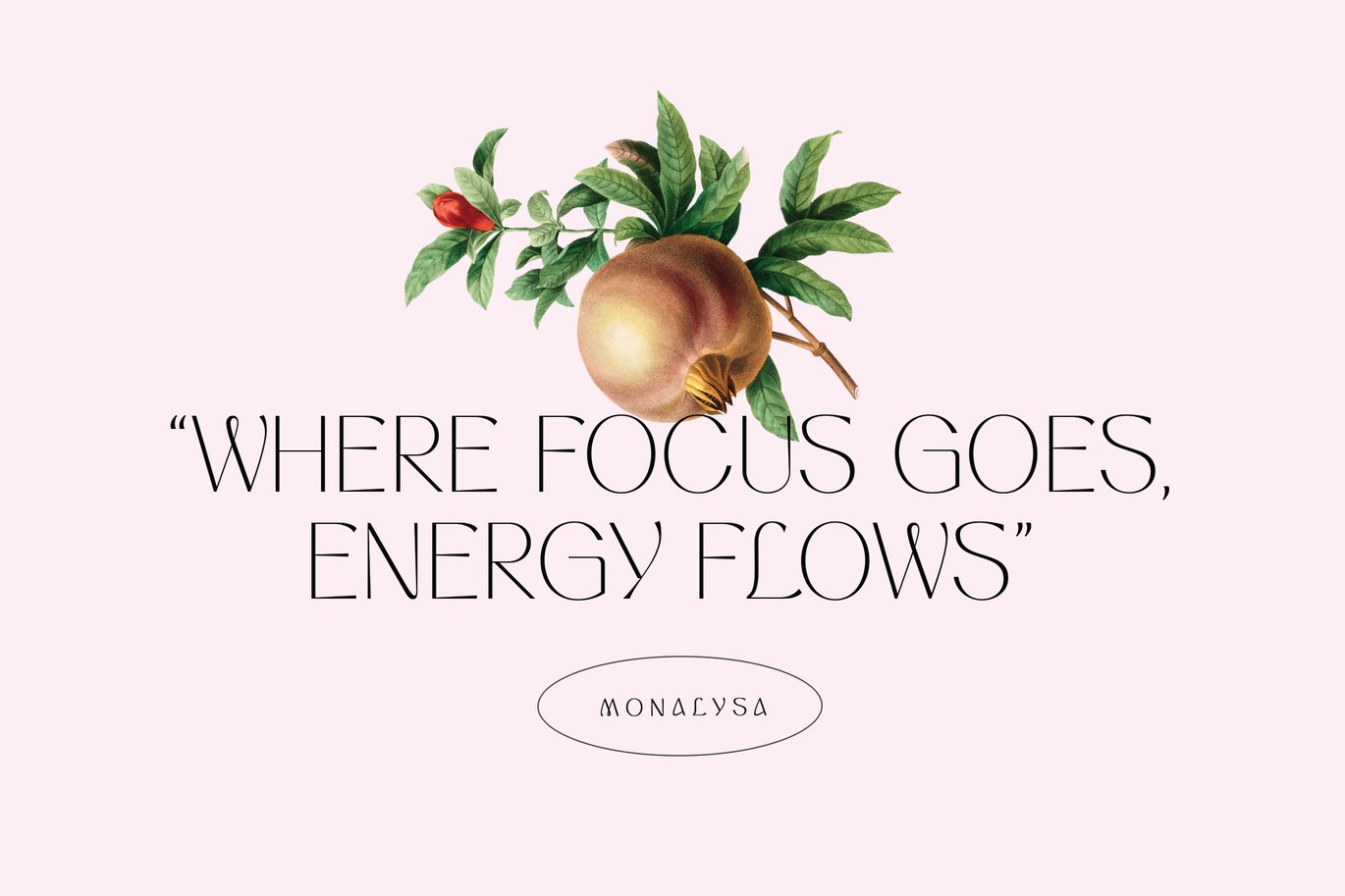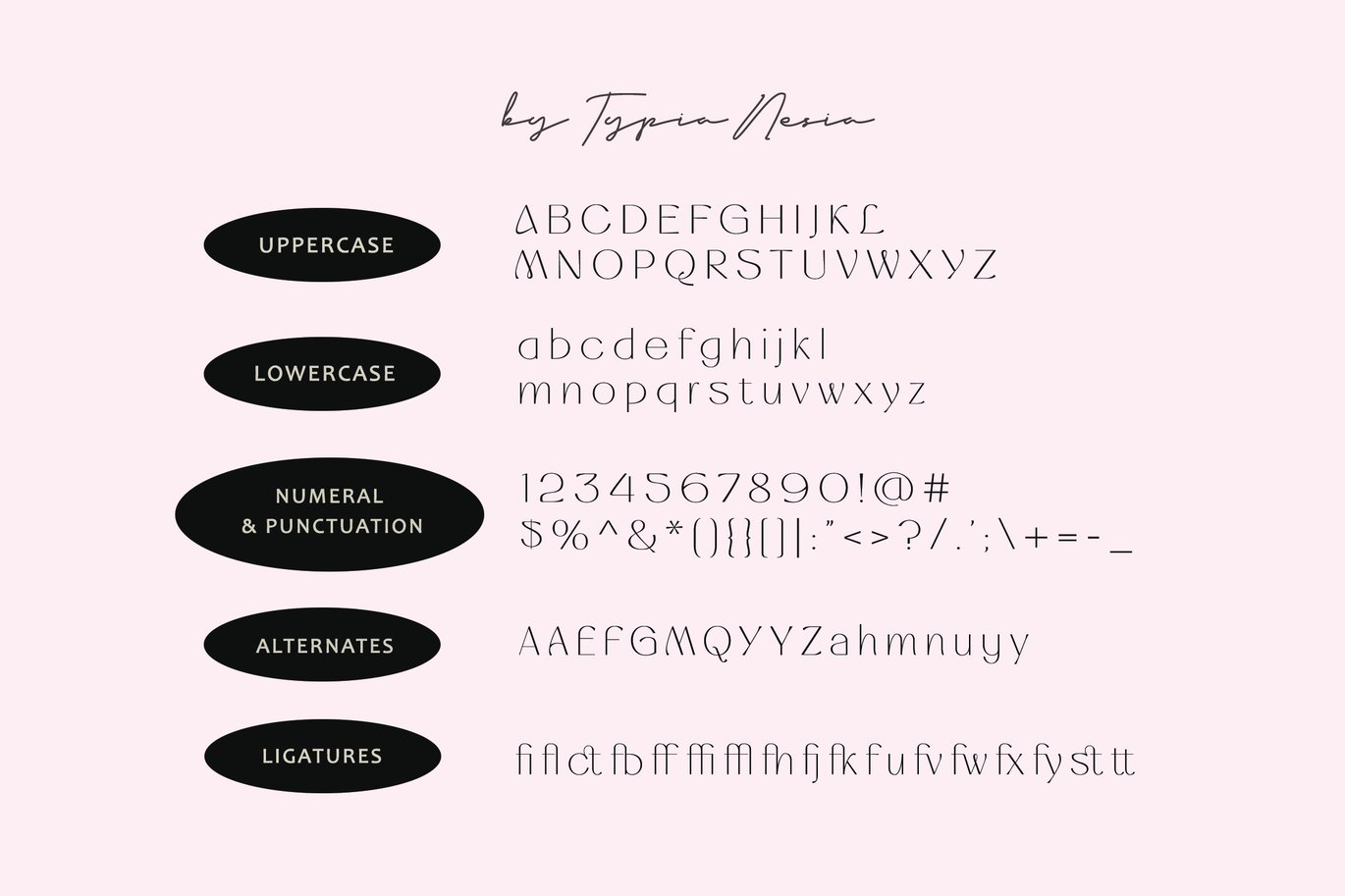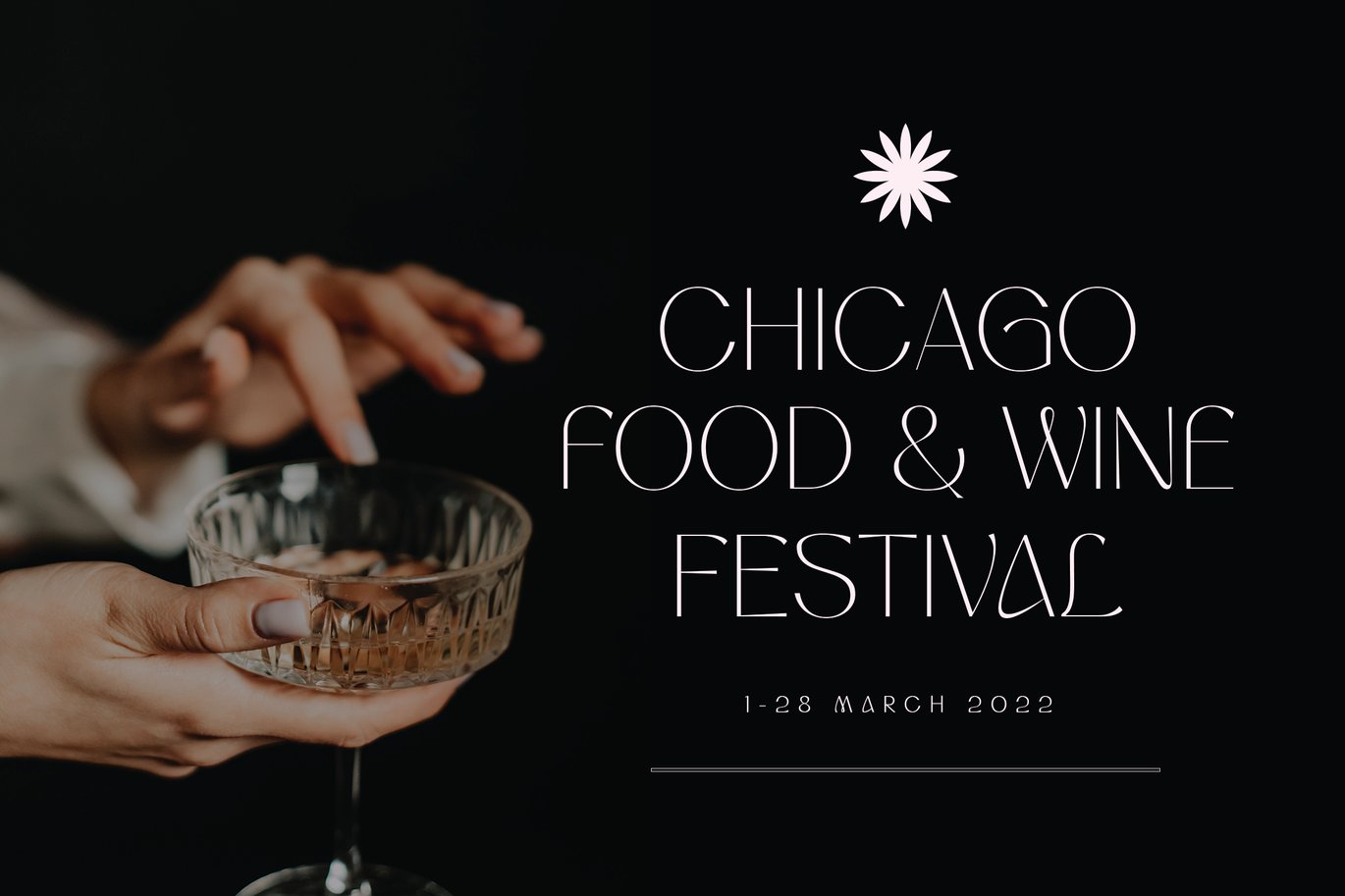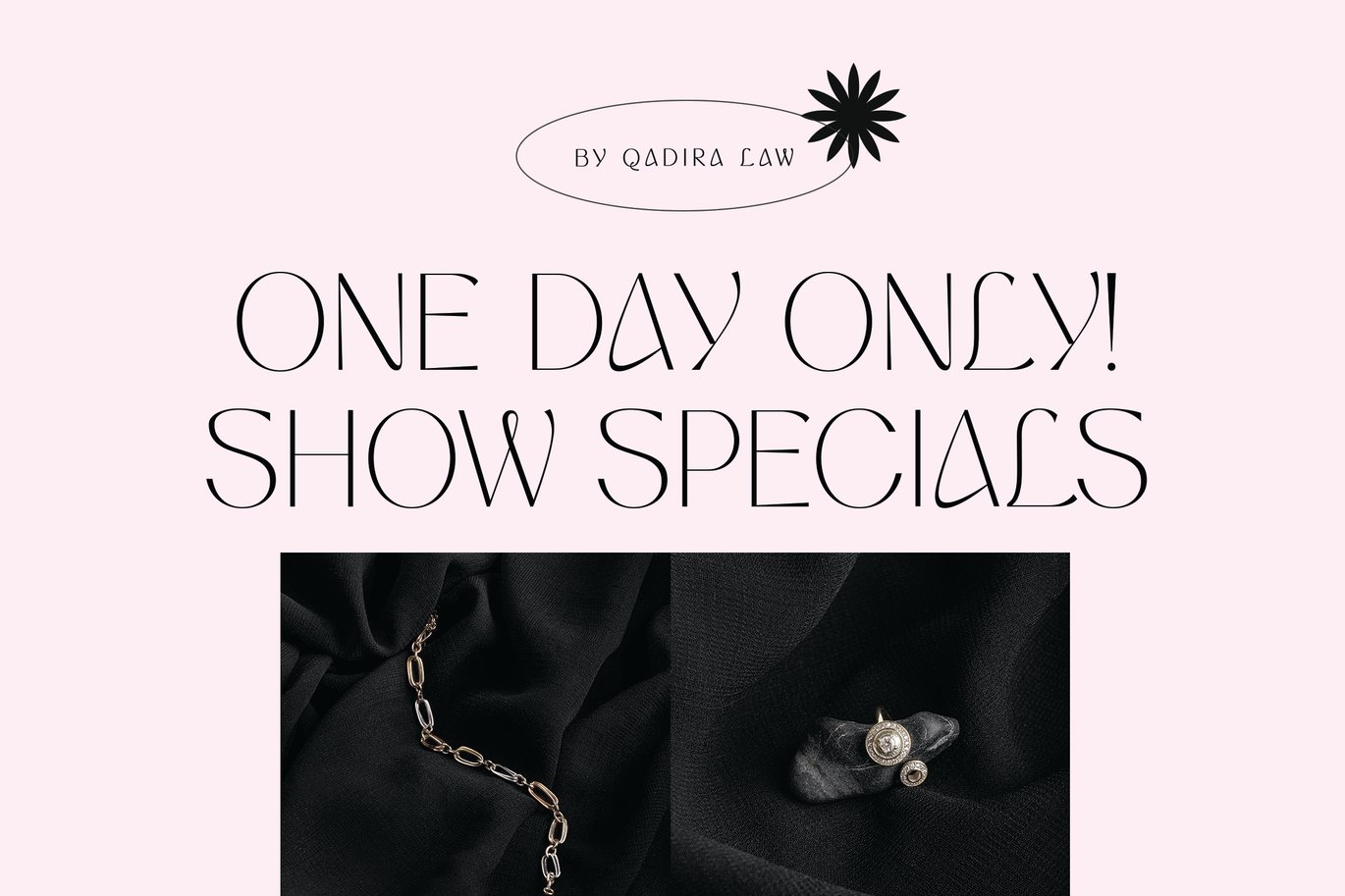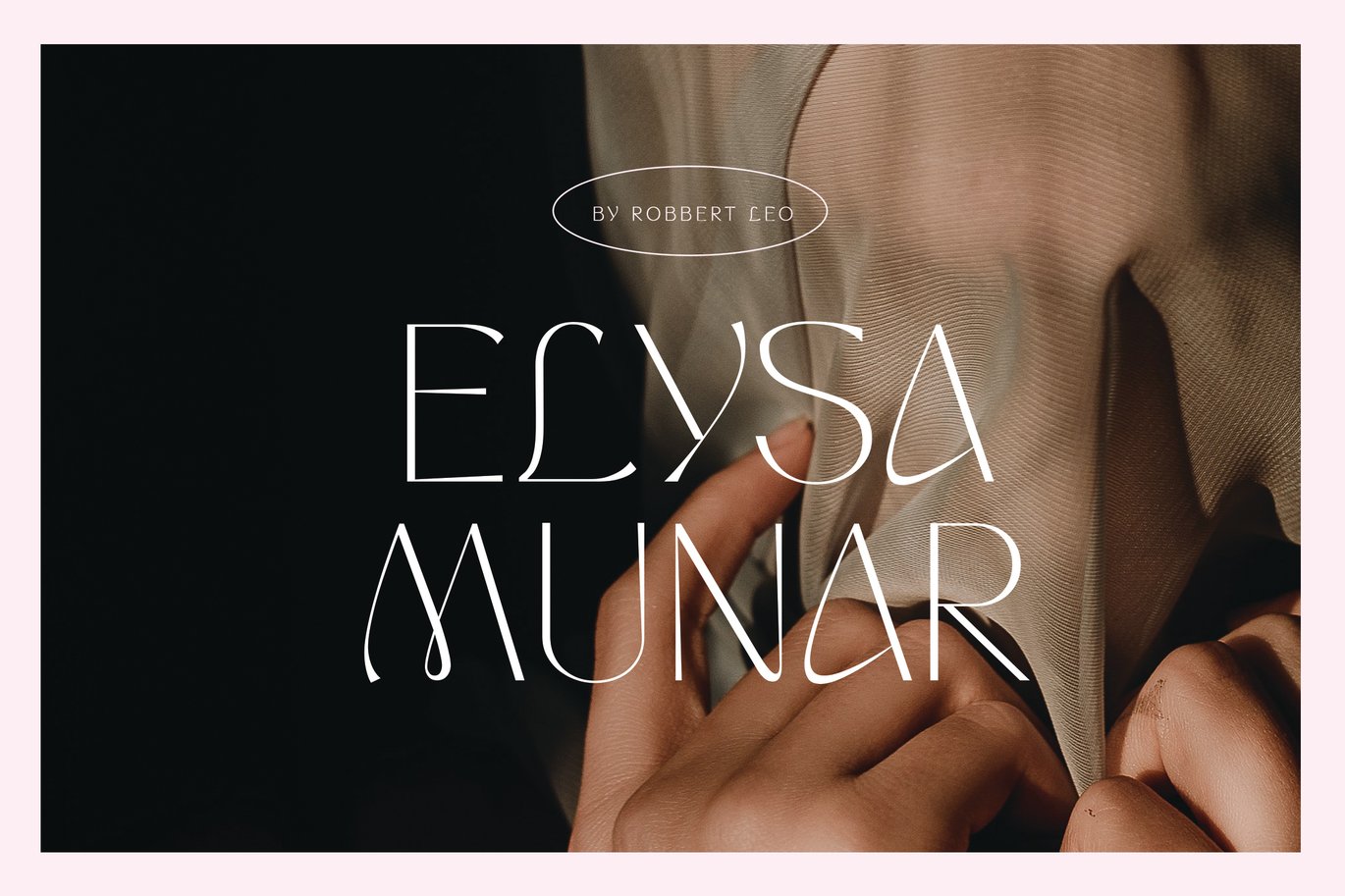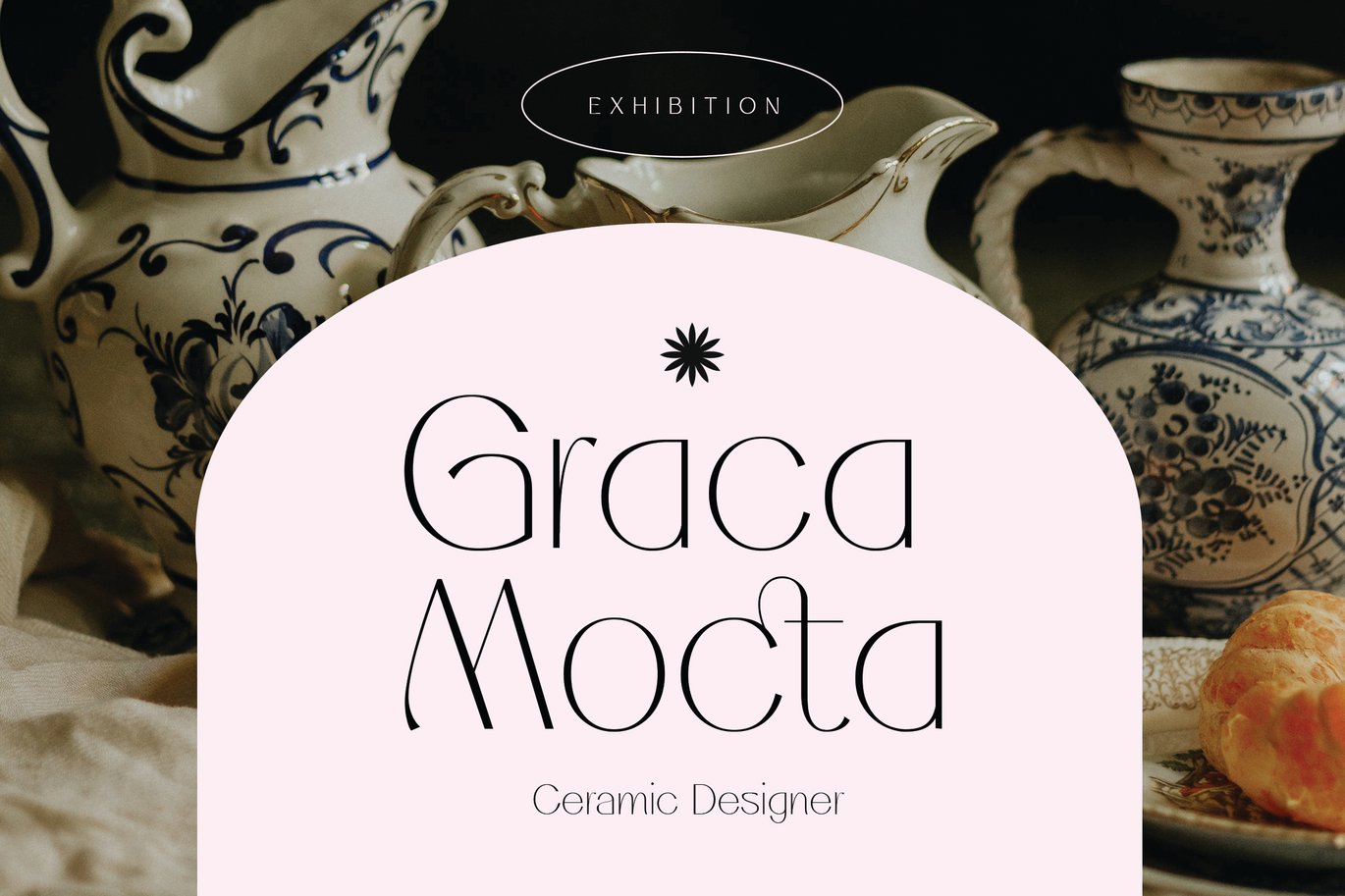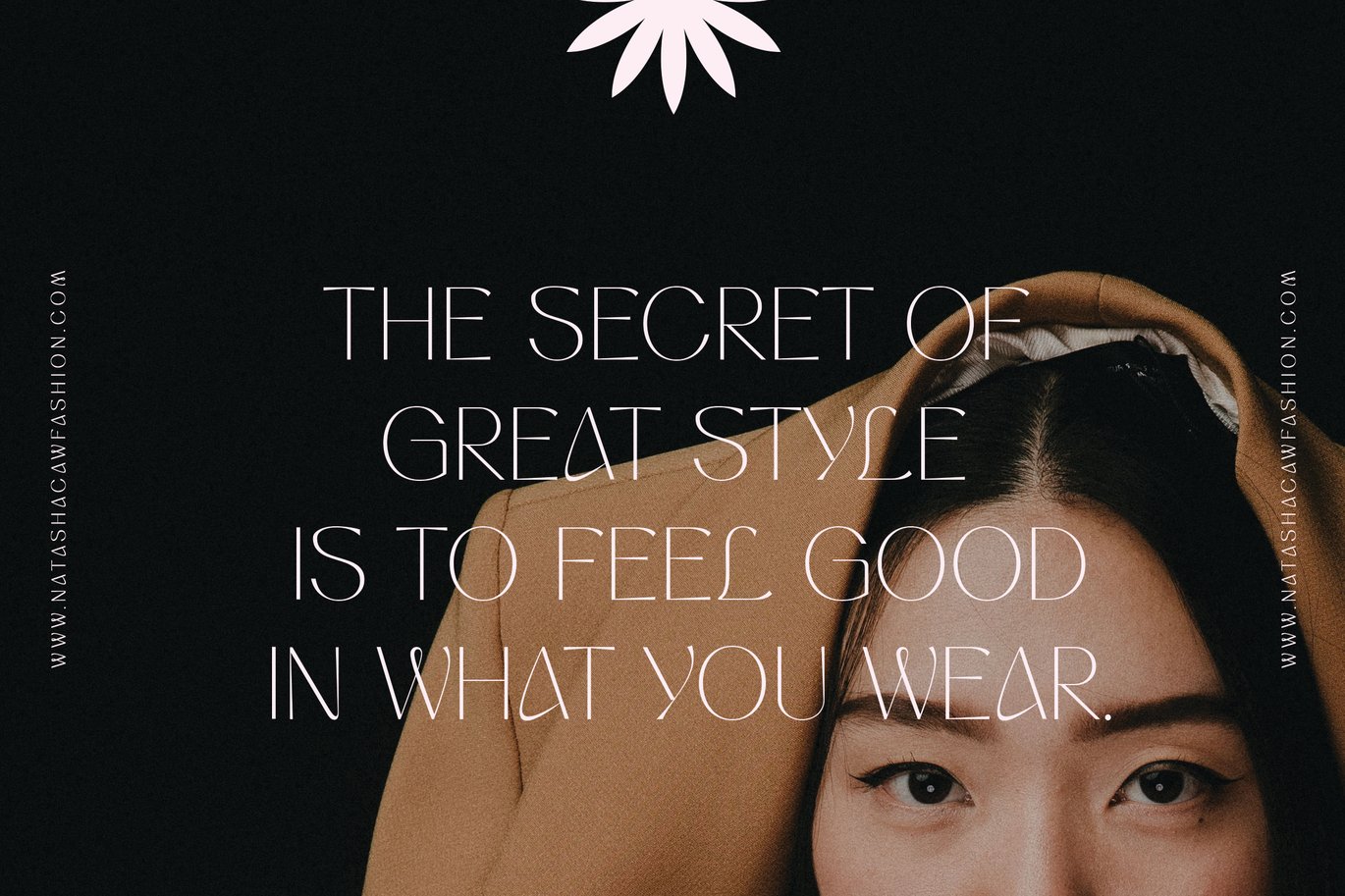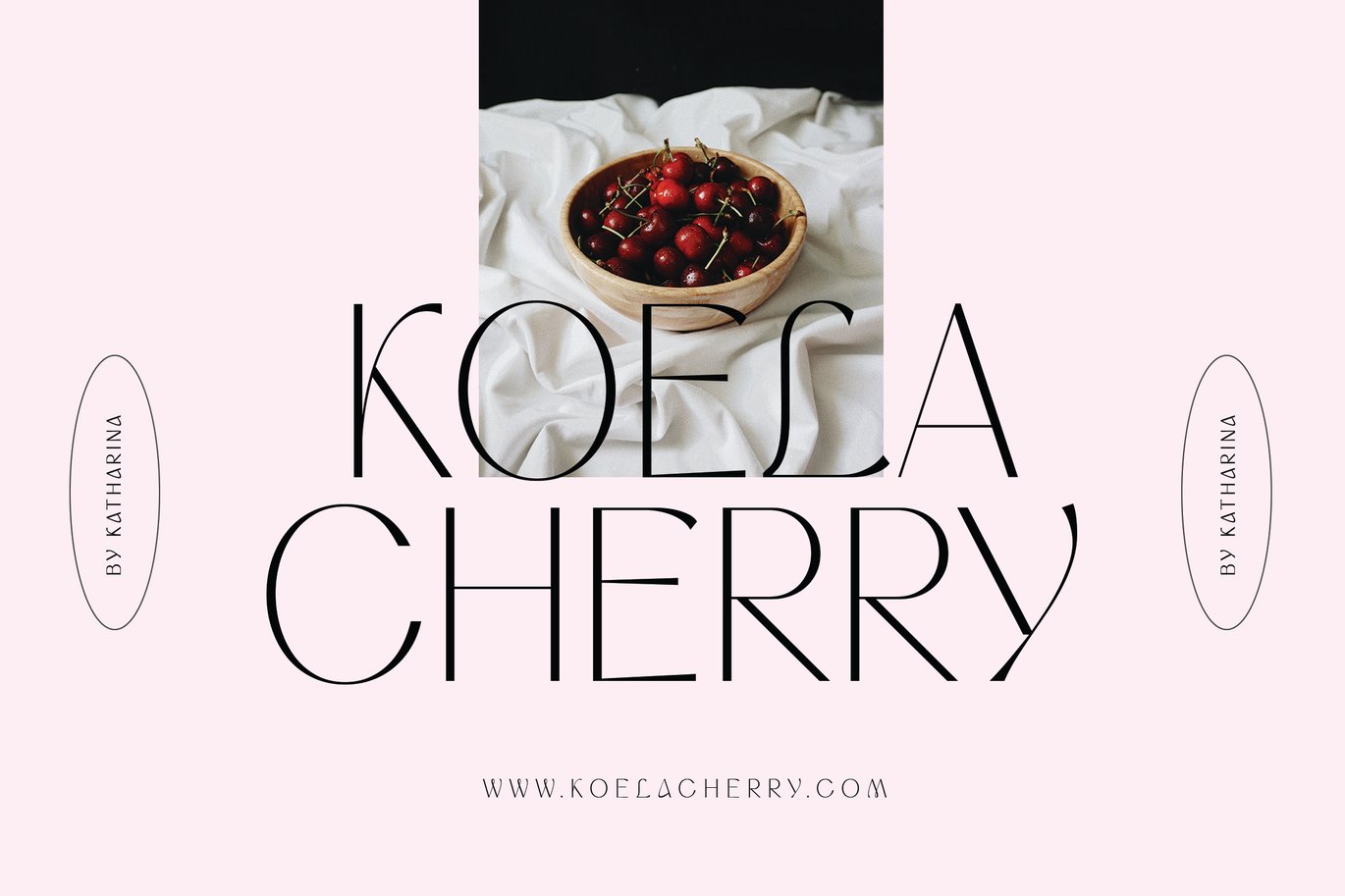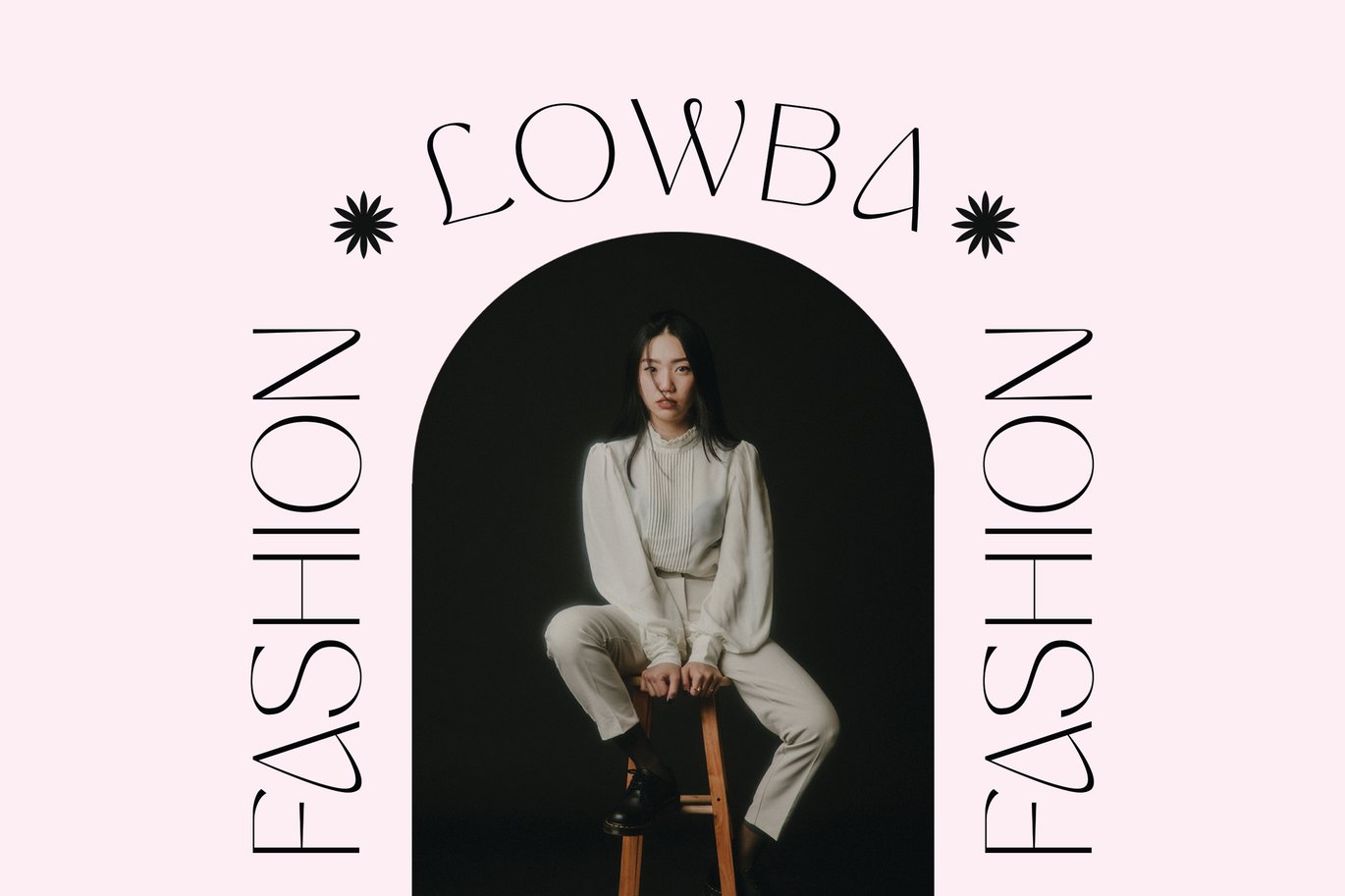
Monalysa – Unique Modern Display Sans Serif Font
Monalysa – Unique Modern Display Sans Serif – Elegant Beauty Logo and Branding Font
Monalysa font is perfect for your up coming projects. Such as luxury logo and branding, classy editorial design, woman magazine, cosmetic brand, fashion promotional, art gallery branding, museum, historical of architectural, boutique branding, stationery design, blog design, modern advertising design, card invitation, art quote, home decor, book/cover title, special events and any more.